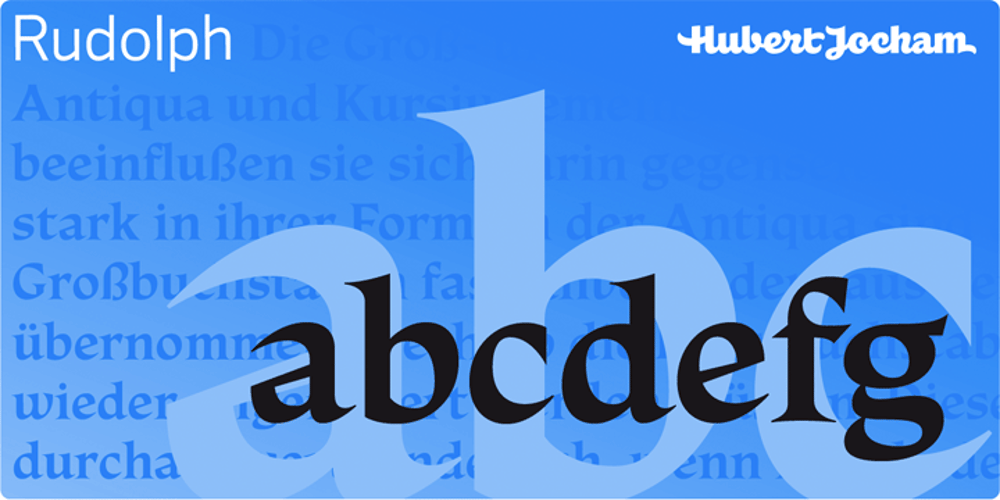
Rudolph
Rudolph Font Family was designed by Hubert Jocham and published by Hubert Jocham Type. Rudolph contains 1 styles and family package options. Rudolph is a bold serif headline typeface with strong contrast in the stroke and the sharp edges. It is very expressive and suitable for food packaging, product branding, magazines, and invitations.